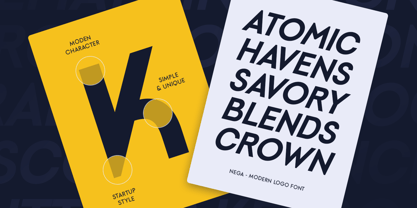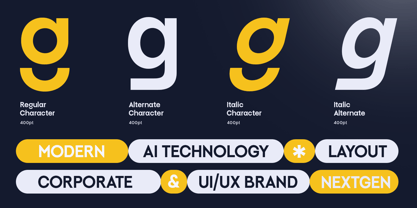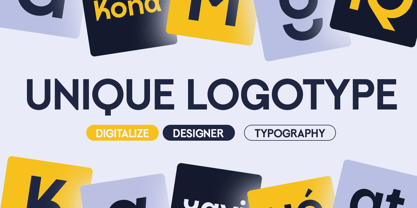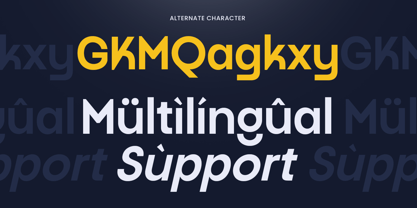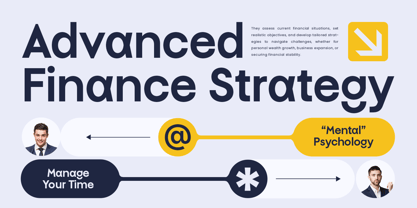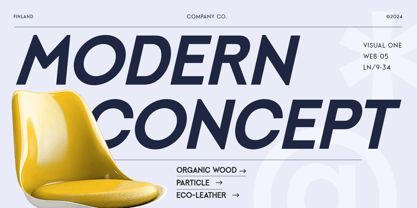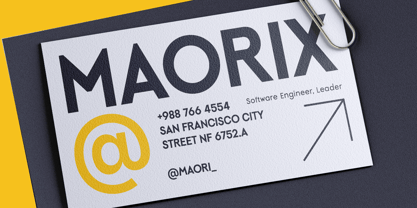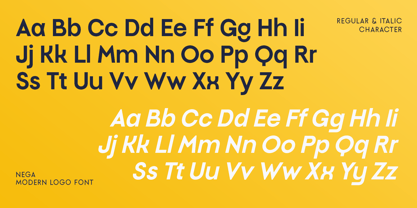
NEGA is a modern logo font designed to bring clarity, elegance, and contemporary style to your branding projects. With its clean lines and balanced letterforms, NEGA is perfect for logos, corporate branding, and creative design applications where a modern aesthetic is essential.
Whether you’re creating a brand identity, digital product design, or print materials, NEGA ensures a professional and polished look that stands out in any context. Its minimal yet sophisticated style makes it versatile for a wide range of modern design needs.
Font Features
Sleek and modern letterforms ideal for branding and logos
Clean, minimal, and professional design
Includes uppercase, lowercase, numerals, and punctuation
Versatile style suitable for digital and print projects
OpenType features for flexible typographic control
Multilingual Support
Supports a wide range of languages including:
Elevate your brand identity with NEGA – the perfect font for modern, clean, and professional logos. ✨️